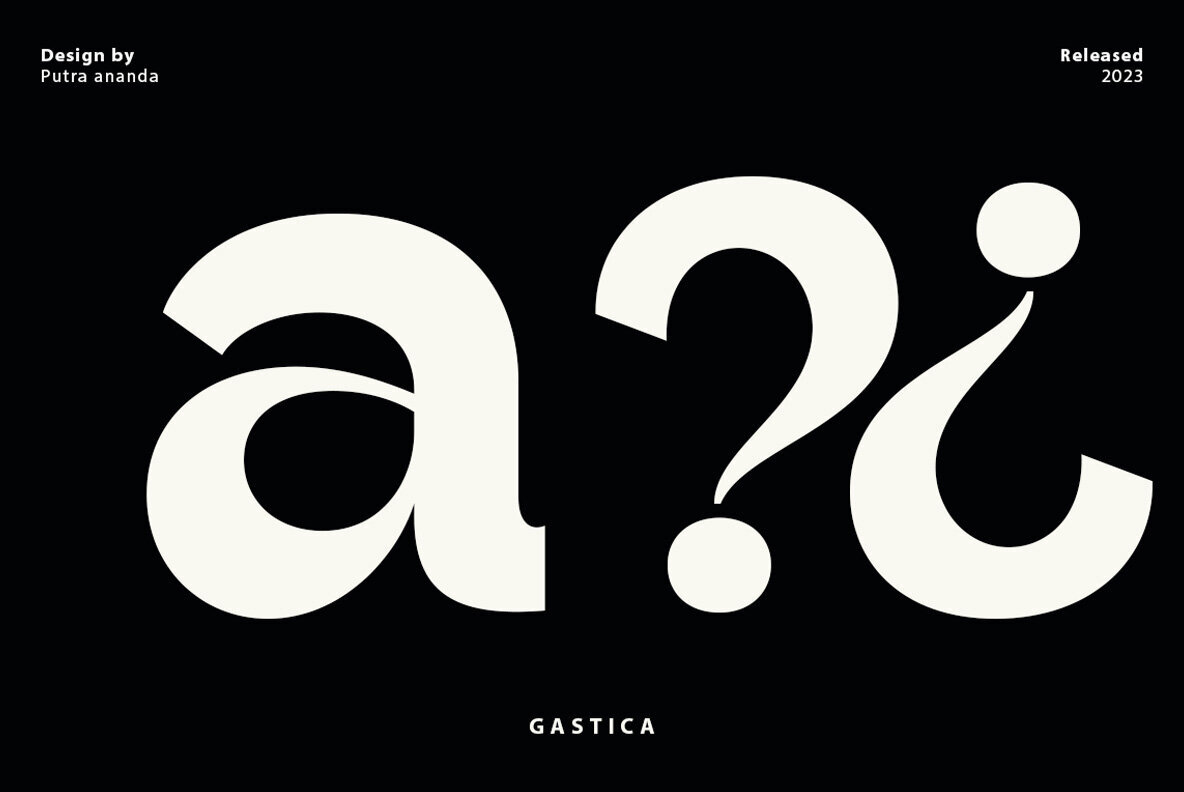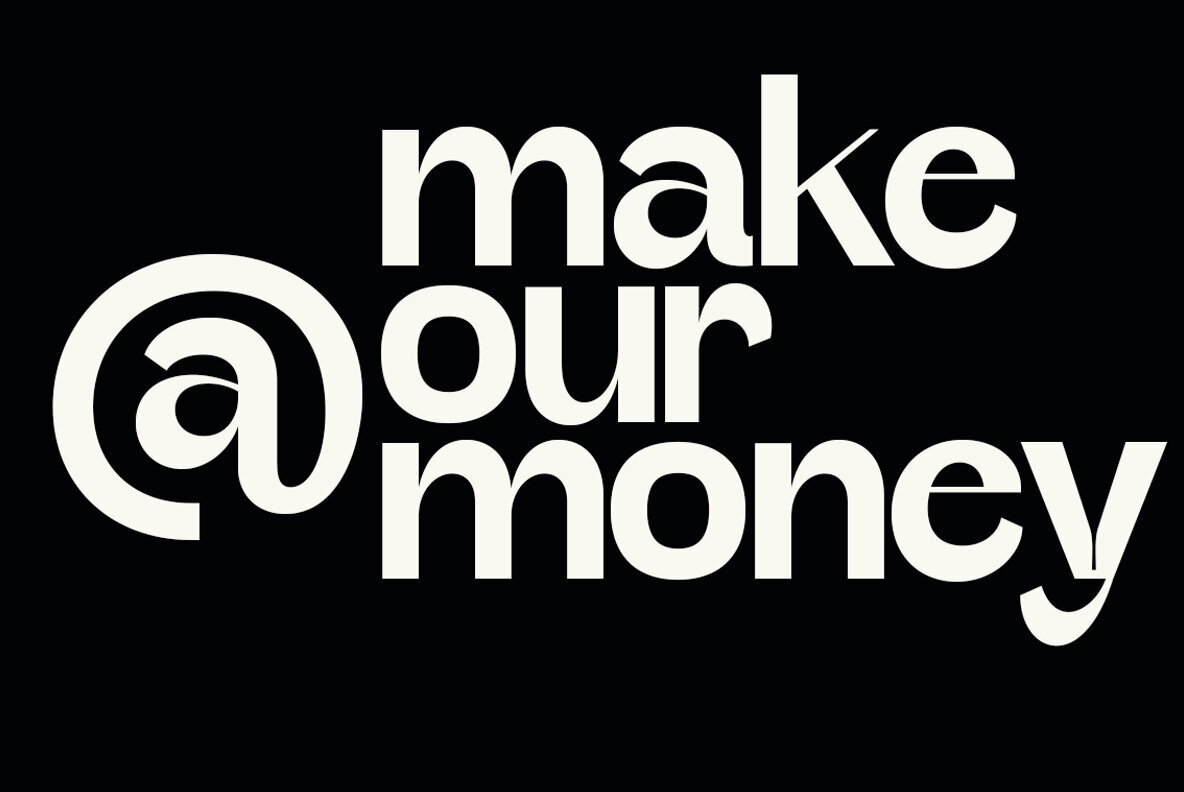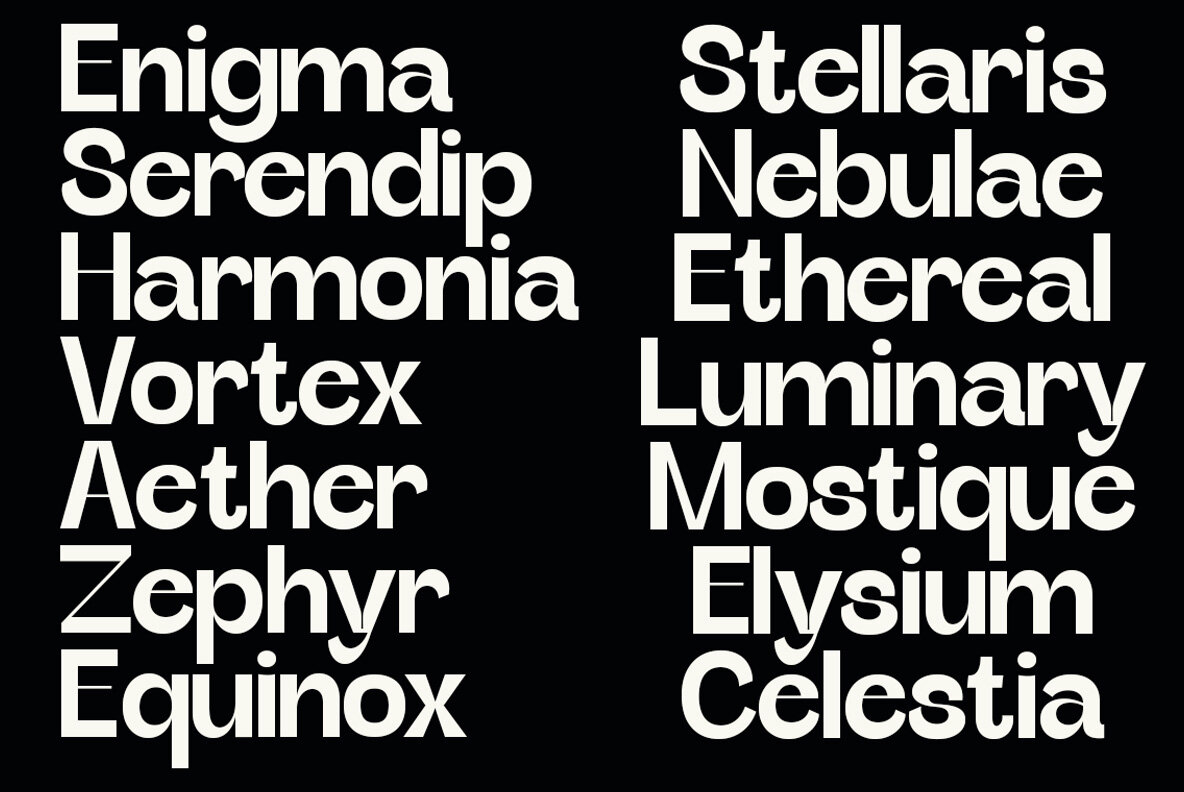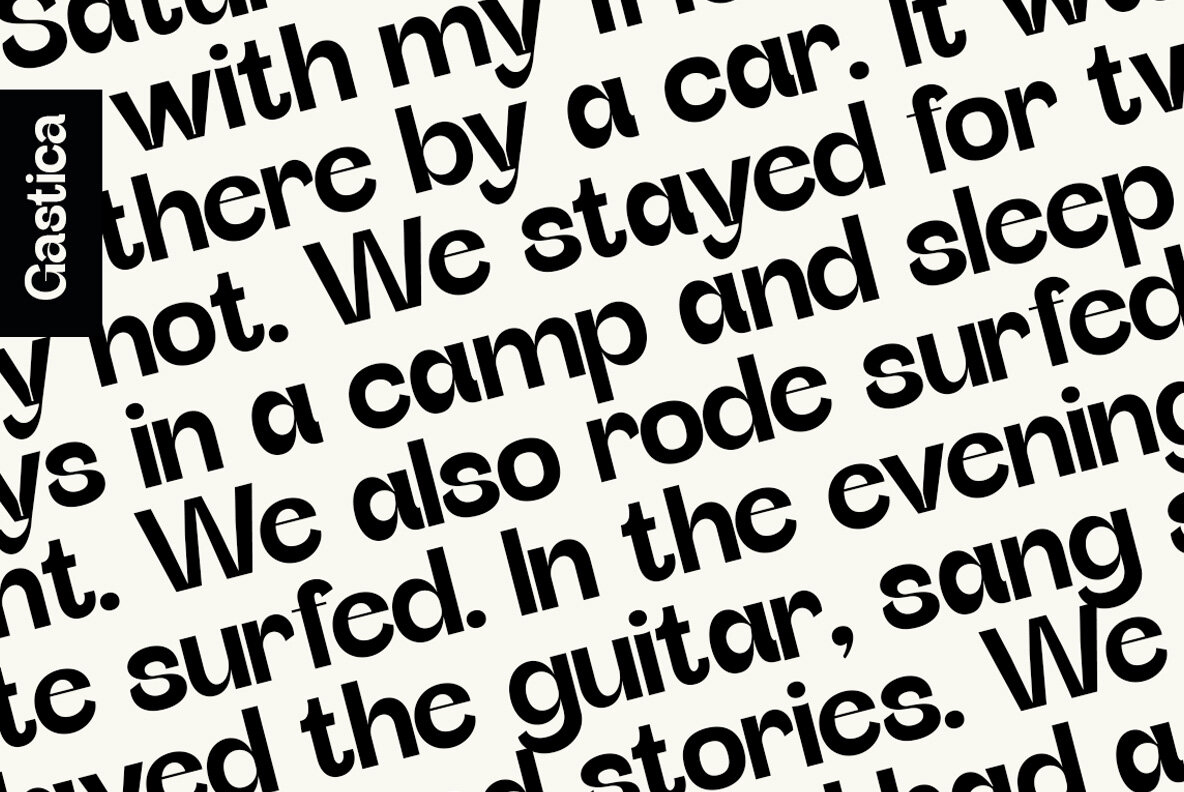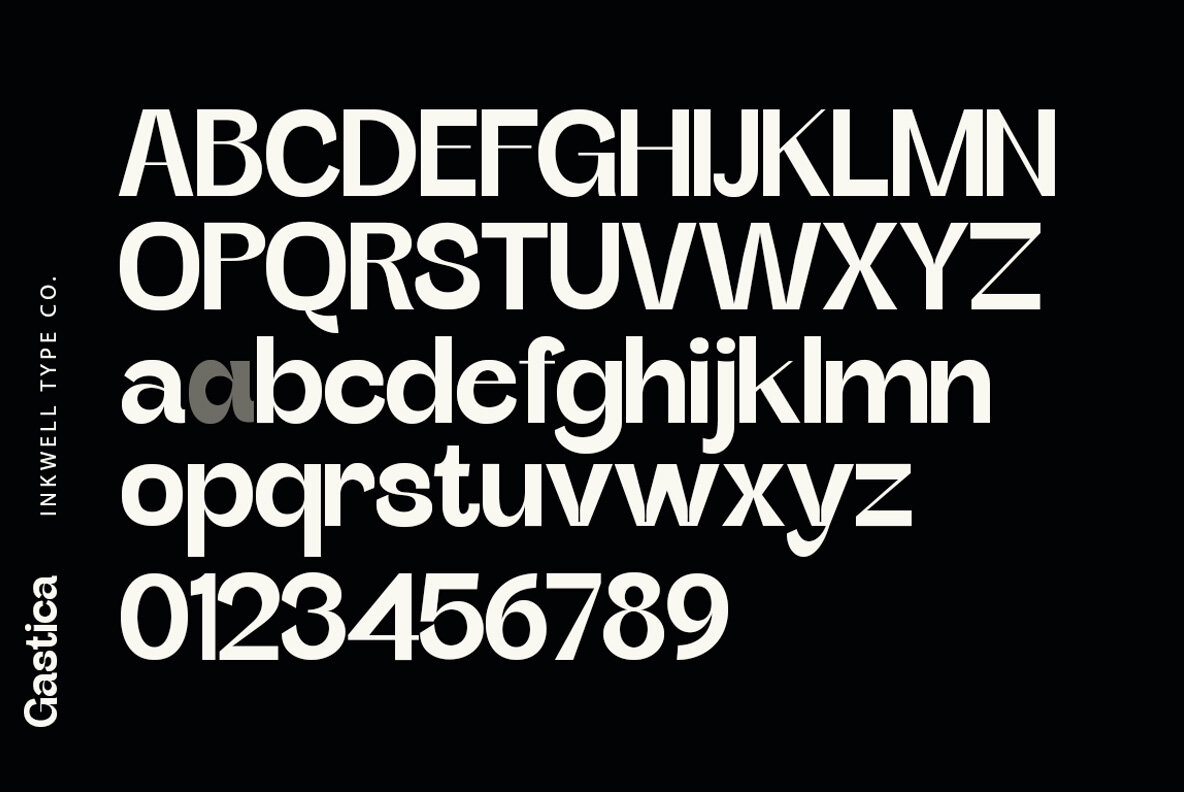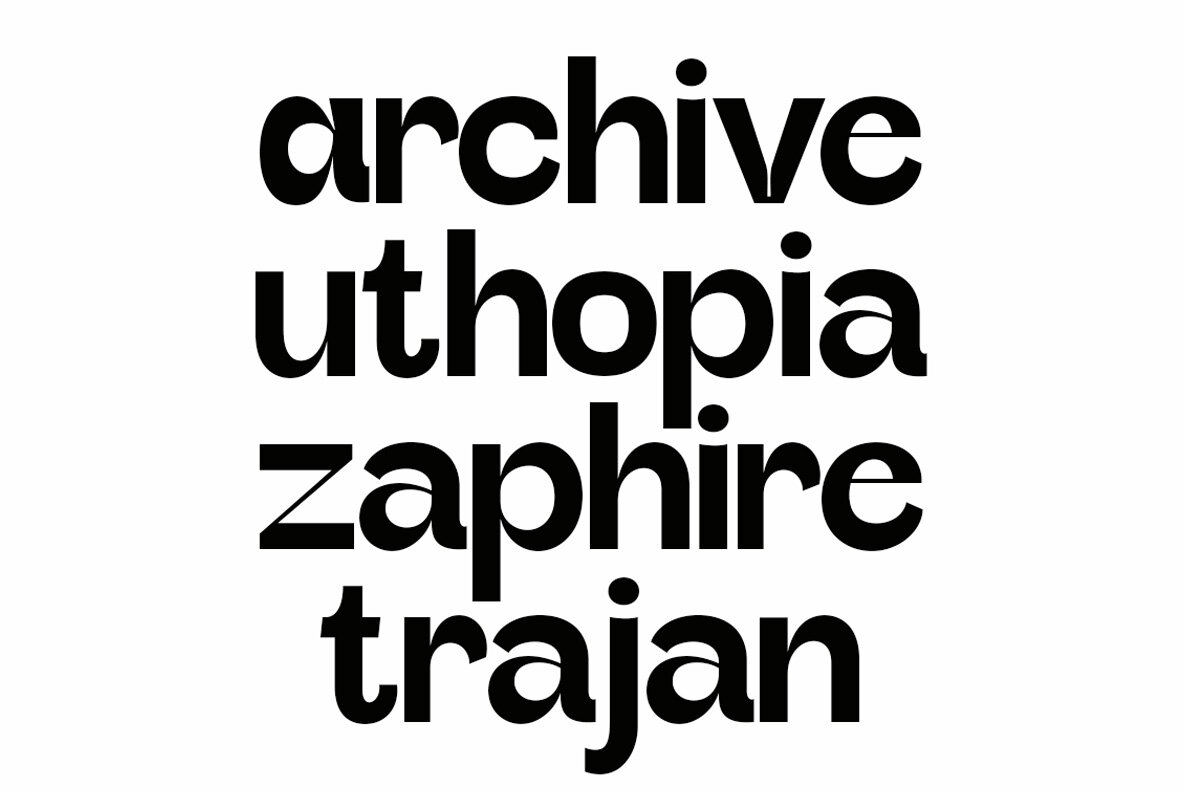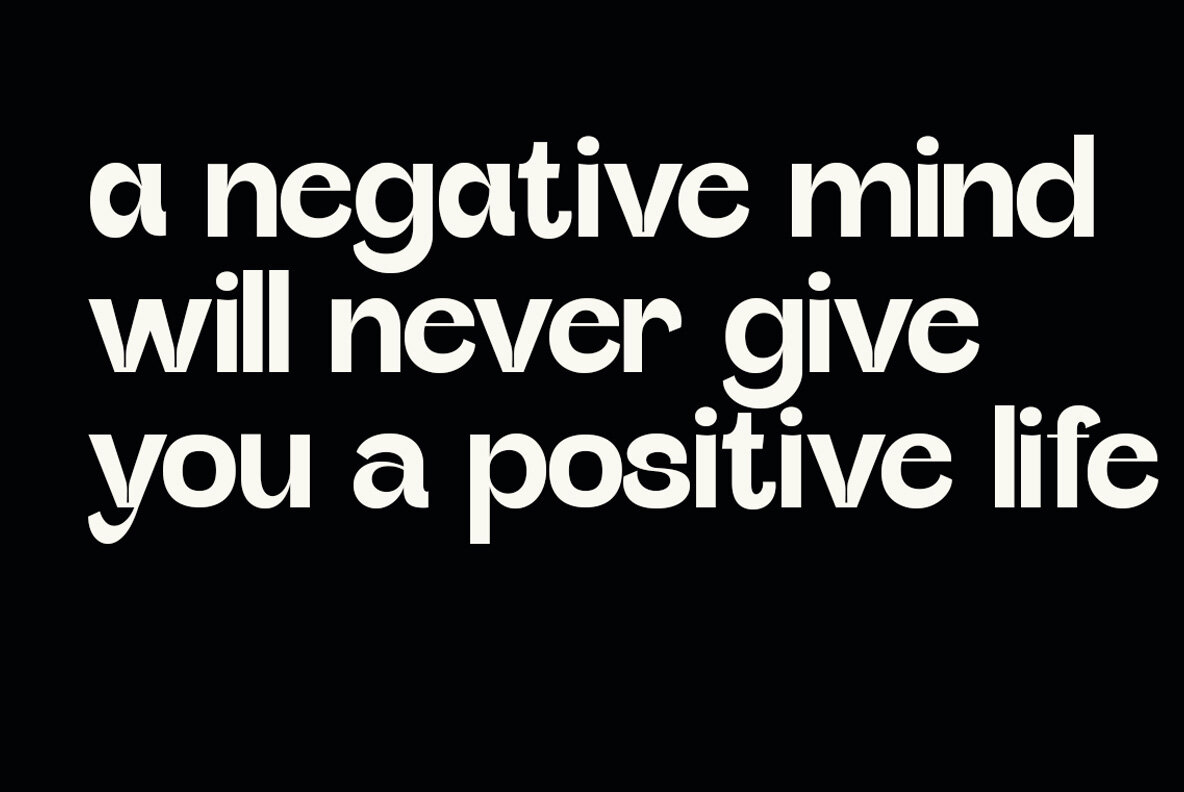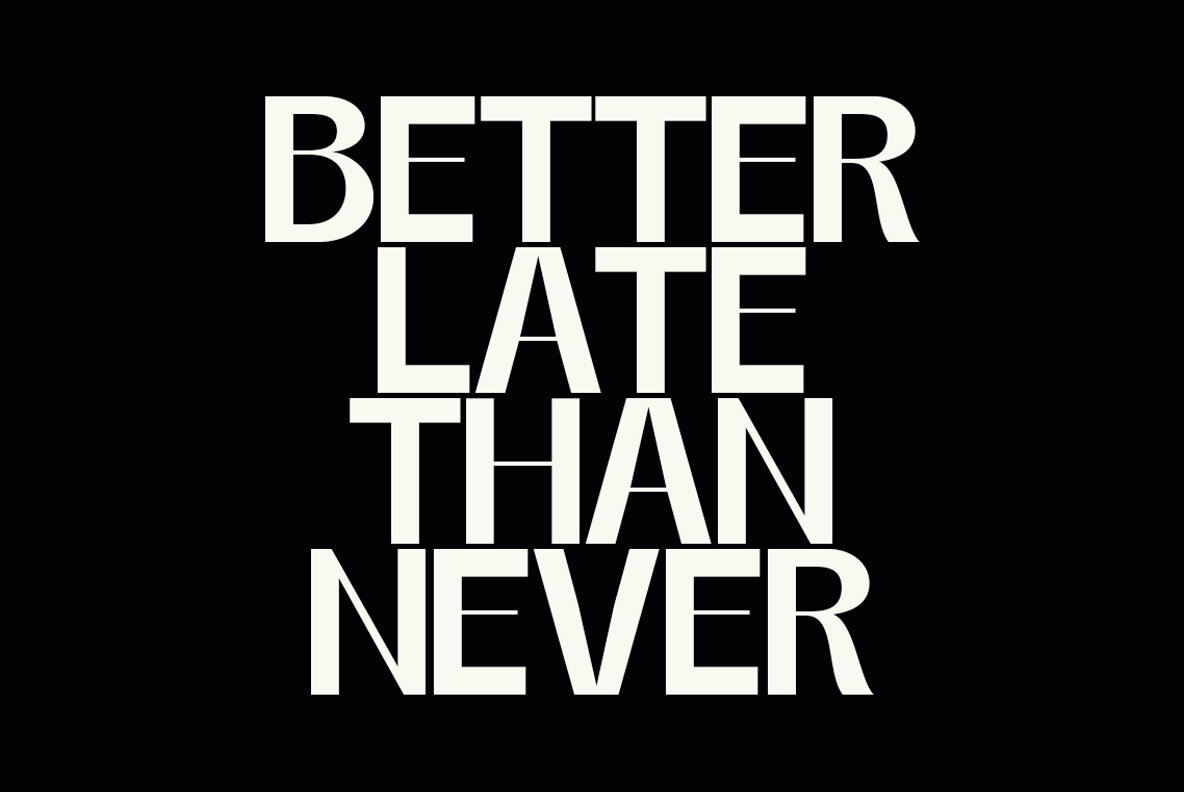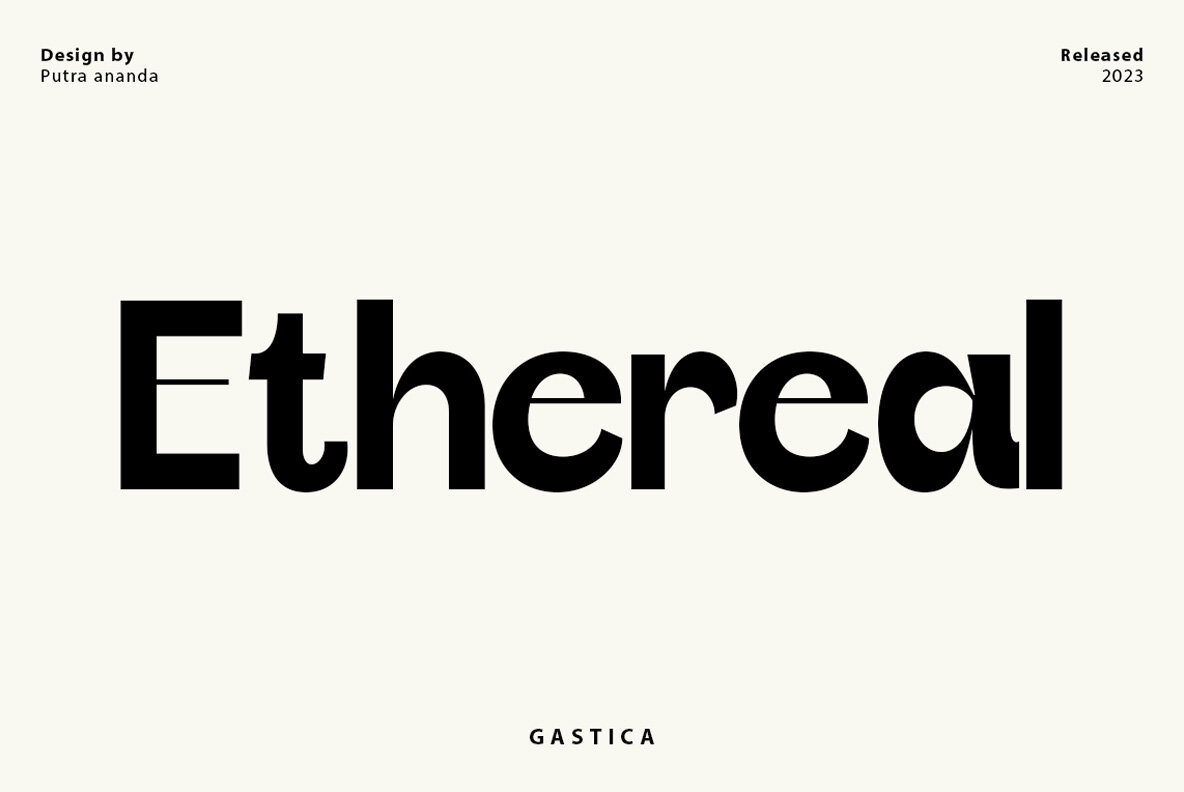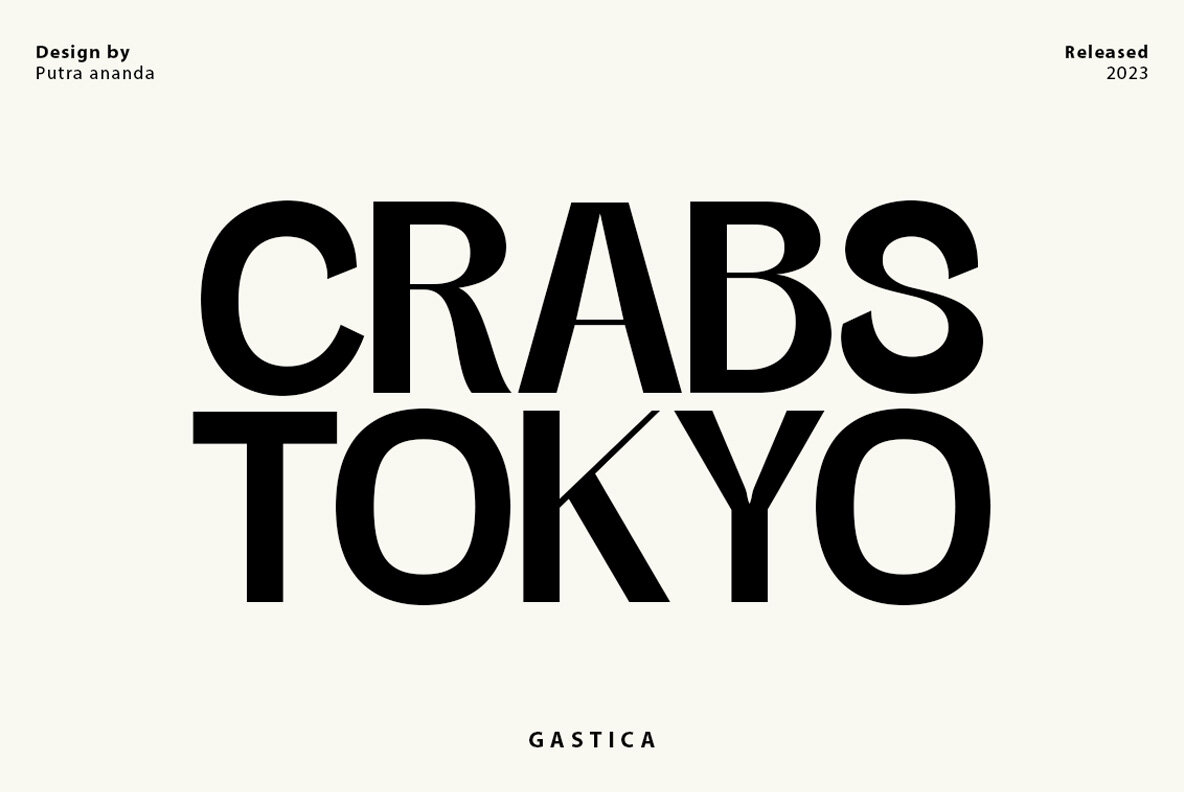
Gastica is an alluring and dazzling display font. With unique letterforms and a modern style, this font is designed to grab attention and make your message stand out.
Gastica has boldness in every letter and elegant style. This font is perfect for titles, logos, and other design elements that you want to draw attention to.
With various variants and font weights available, Gastica provides flexibility in expressing your creativity. Whether you want a strong and bold look, or a more subtle and elegant look, this font can meet your design needs